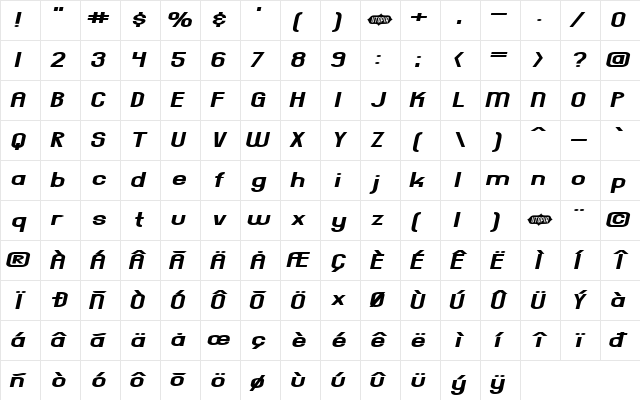
Everyday Formula Sway Regular
Design Context for Everyday Formula Sway Typeface
Everyday Formula Sway is a composed and adaptable typeface that performs quietly and consistently across a wide range of design contexts.